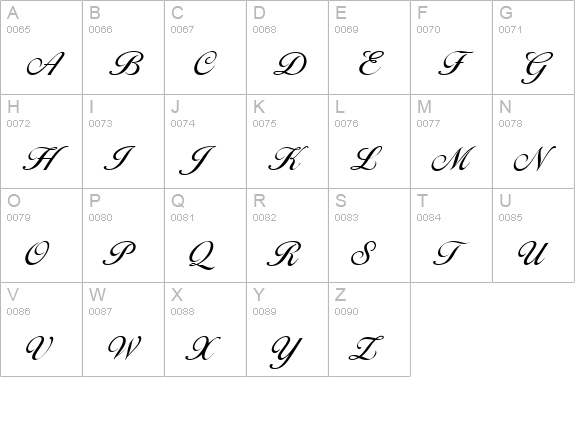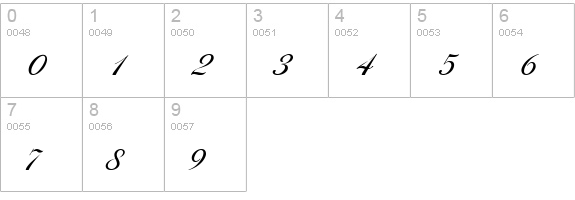
Cotillion Regular is the standard, neutral variant in the Cotillion typeface family \xE2\x80\x94 well suited to general body text, paragraphs, and standard typographic work.
Cotillion Regular font is a classic and elegant typeface that exudes sophistication and charm. With its graceful curves and clean lines, this font is perfect for adding a touch of refinement to any project. Whether you're designing invitations, branding materials, or editorial content, Cotillion Regular will elevate your work to the next level. Best of all, Cotillion Regular is available for free download at FontsMarket.com. This means you can access this exquisite font without any cost, making it a valuable addition to your font collection. Don't miss out on the opportunity to enhance your designs with the timeless beauty of Cotillion Regular. Download it today and start creating stunning visuals that will leave a lasting impression.